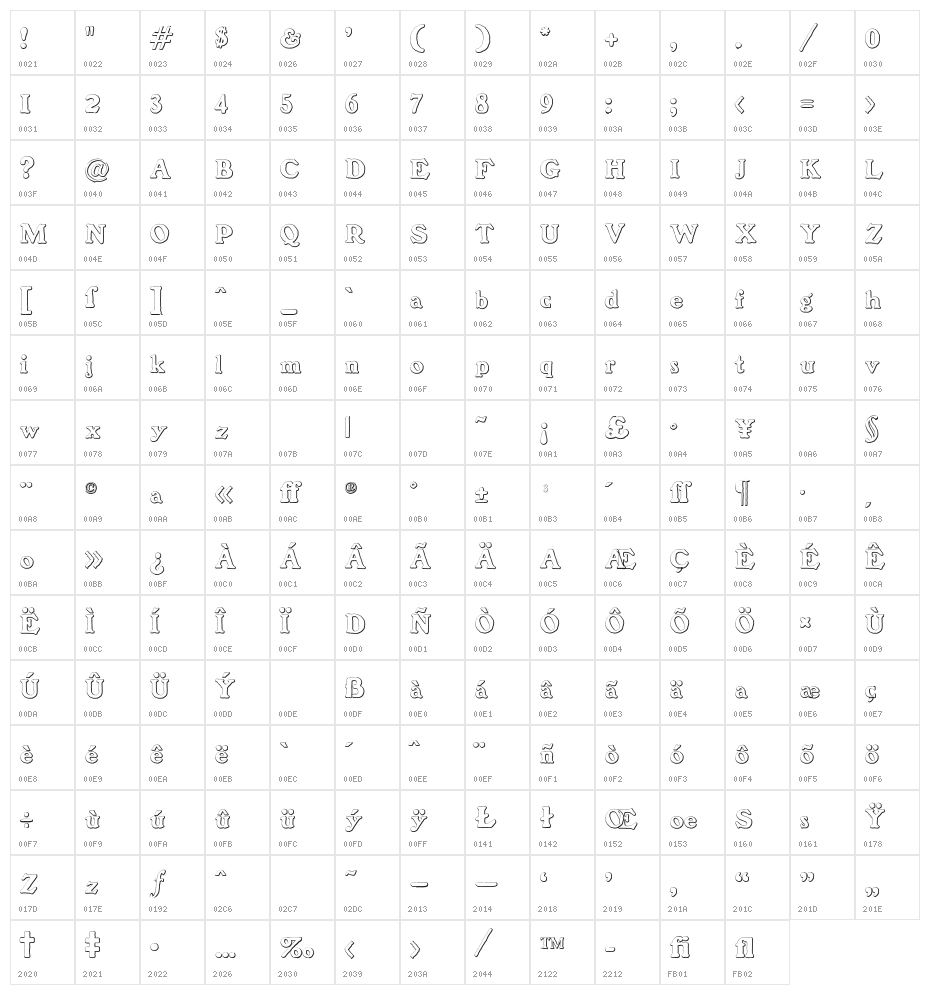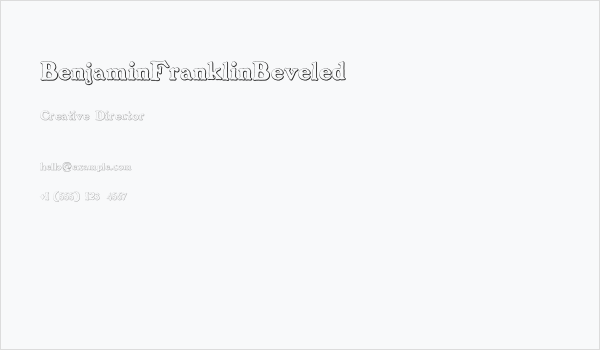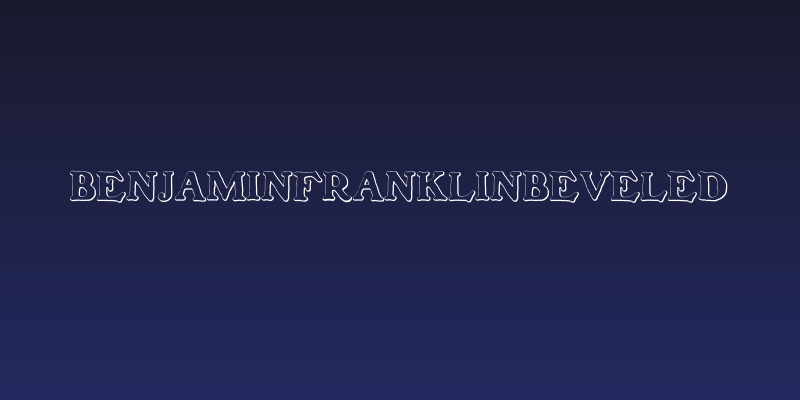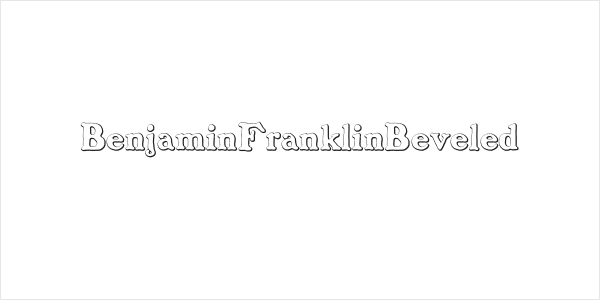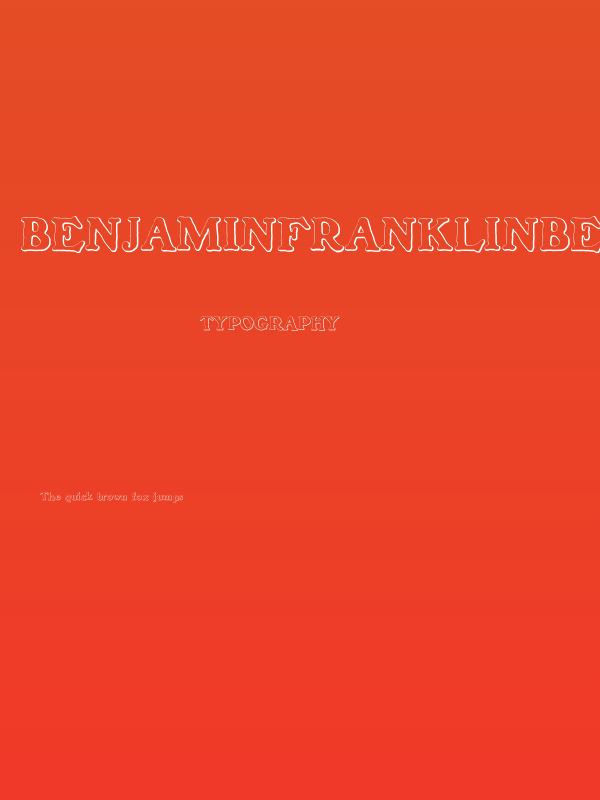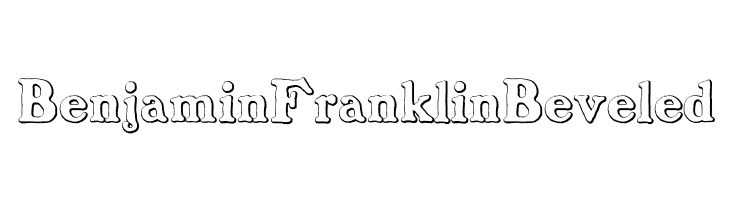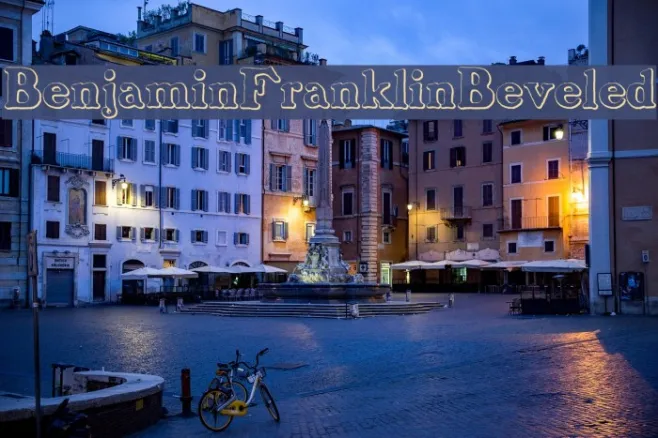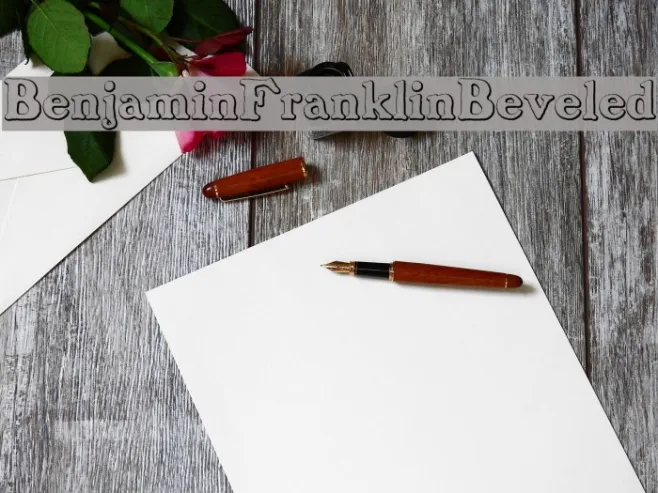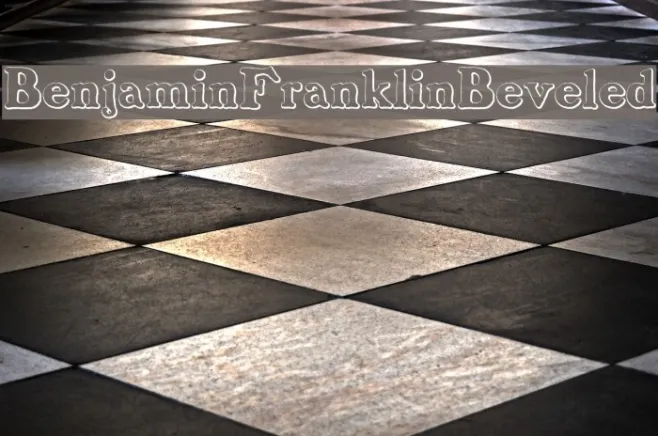
BenjaminFranklinBeveled Font
BenjaminFranklinBeveled Description
This font features a distinctive beveled style, giving each character a three-dimensional appearance. The serif design adds a classic touch, while the beveled edges provide a unique, decorative flair. The uppercase and lowercase letters maintain a consistent style, with moderate stroke contrast that enhances readability. The numerals and special characters are designed to match the overall aesthetic, making this font suitable for a variety of creative applications.
| Overall Style | Vintage, Decorative |
| Proposed Projects | Ideal for vintage-themed designs, logos, headlines, and posters where a touch of elegance and depth is desired. |